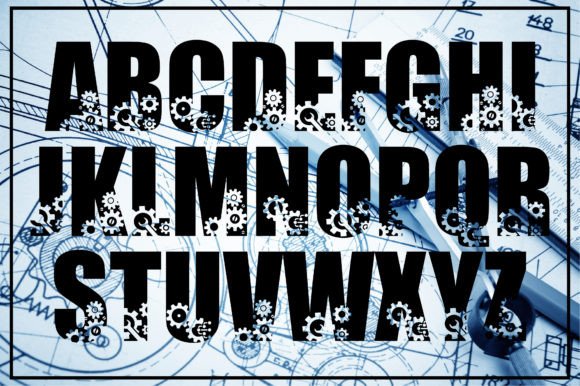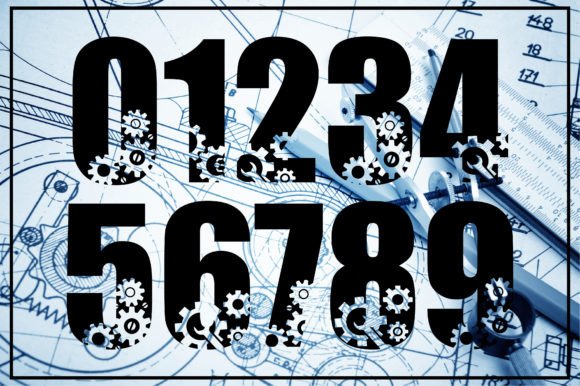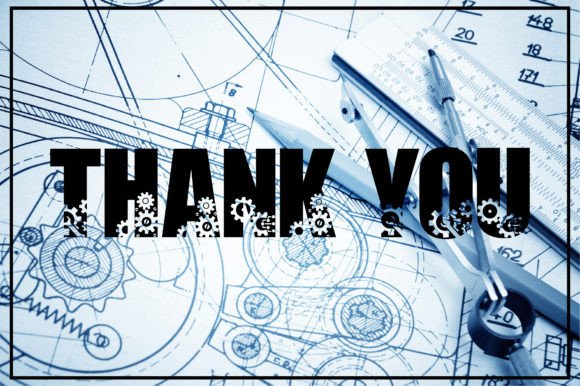
Engineer Font
Engineer is a thick lettered and incredibly unique decorative font. It can be used for various design ideas, particularly those related to children’s games, science, space exploration, and school.